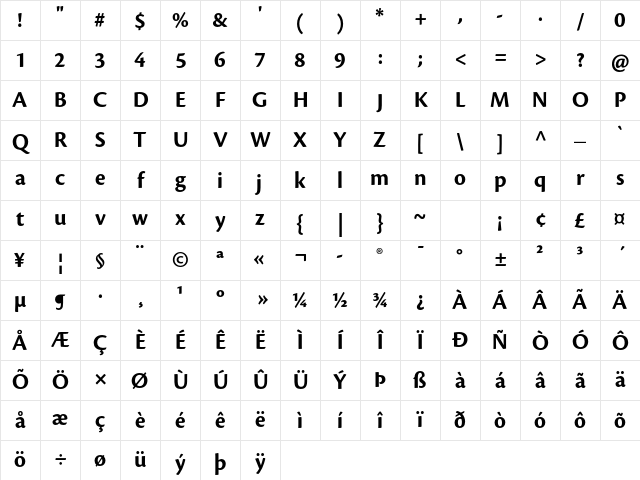
Cronos Pro Bold Display
Style: Bold Display
Complete Cronos Pro Bold Display glyph index. Displaying only characters natively supported by Cronos Pro Bold Display font.
Design Context for Cronos Pro
Cronos Pro is built around its visual character rather than neutral utility - its distinctive forms are designed to make an impression at display sizes. Its bold stroke weight gives it real presence on the page.
Font Pairing: Pair with a clean neutral sans-serif for body copy to let Cronos Pro's character lead without overwhelming the composition.
Pro Tip: Use Cronos Pro exclusively at display sizes - it was designed to be seen, not read at length. Let a neutral companion handle body copy.